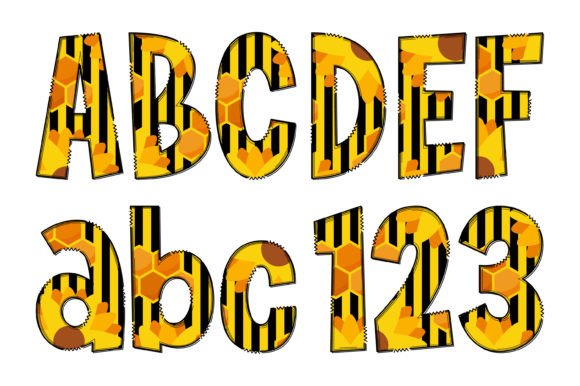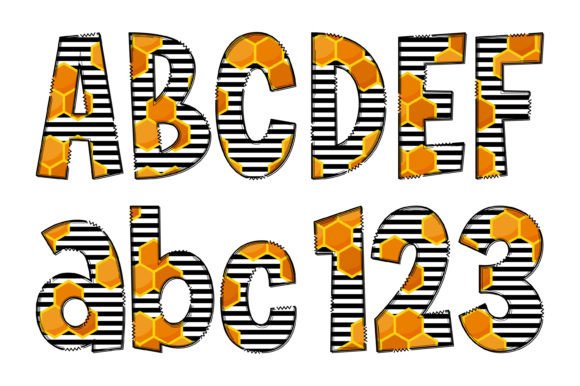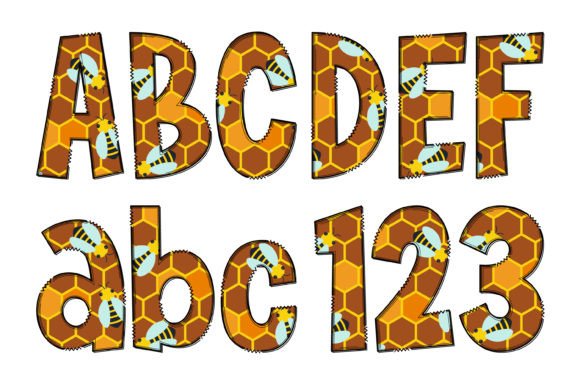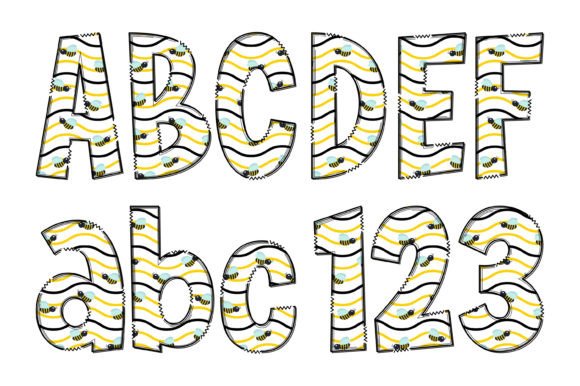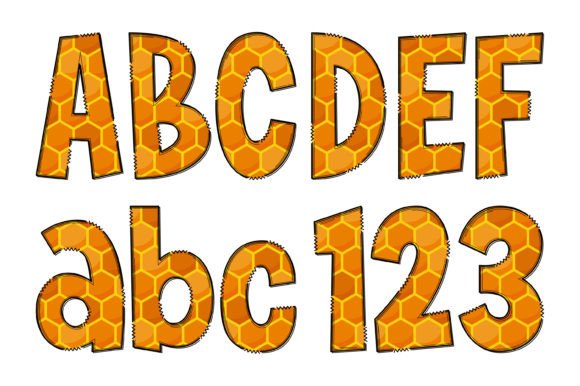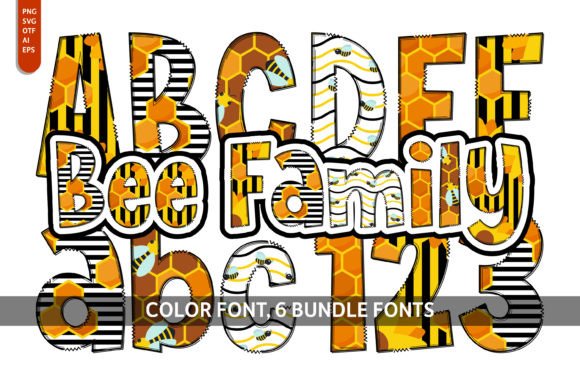
Bee Family Font: The Sweetest Addition to Your Design Collection
Are you a designer or crafter looking for a font that adds a touch of playfulness and whimsy to your projects? Look no further than the Bee Family Font! This delightful font is perfect for creating engaging and artistic designs that are sure to capture the attention of your audience. In this article, we’ll dive into the world of Bee Family Font, exploring its features, uses, and compatibility, as well as provide tips on how to make the most of this amazing font.
What is Bee Family Font?
Bee Family Font is a color font, specifically an Opentype-SVG font, which means it’s a highly versatile and dynamic font that can be used in a variety of design applications. This font is part of the Bee Family Bundle, a collection of fonts designed to bring a sense of fun and playfulness to your designs. With its unique and colorful aesthetic, Bee Family Font is ideal for designs that aim to convey a sense of whimsy and creativity.
Uses of Bee Family Font
Bee Family Bundle fonts, including Bee Family Font, are often used in designs that aim to convey a playful or artistic feel. Some popular uses of this font include:
- Children’s books: Whimsical and colorful fonts like Bee Family Font are perfect for creating engaging and interactive children’s books that capture young imaginations.
- Posters: Add a touch of playfulness to your posters with Bee Family Font, making them stand out and grab attention.
- Invitations: Create unique and eye-catching invitations for parties, events, or celebrations with this delightful font.
- Greeting cards: Add a personal touch to your greeting cards with Bee Family Font, making them extra special for any occasion.
Tips for Using Bee Family Font
- Experiment with colors: As a color font, Bee Family Font offers endless possibilities for color combinations. Don’t be afraid to try out different hues and shades to find the perfect fit for your design.
- Mix and match: Combine Bee Family Font with other fonts to create a unique and visually appealing design.
- Play with sizes: Use Bee Family Font in various sizes to add depth and interest to your design.